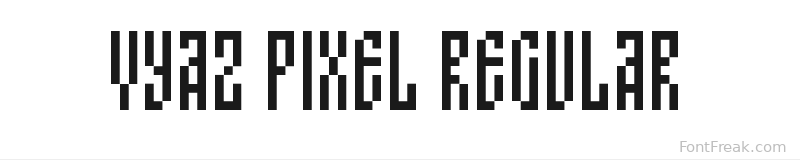
Vyaz Pixel Regular
About Vyaz Pixel Regular
Vyaz Pixel Regular by GGBot is a distinctive display font that falls within the pixel category. This typeface showcases a unique, blocky aesthetic, reminiscent of retro video games and digital displays. Its characters feature a consistent stroke weight, providing a uniform appearance that contributes to its intriguing visual impact. The spacing is thoughtfully designed, allowing for clear legibility while maintaining a cohesive look. With its angular forms and sharp edges, Vyaz Pixel Regular exudes a sense of technological sophistication that is both eye-catching and modern.
This font is ideal for a variety of creative applications. Graphic designers may find it particularly suitable for designing video game interfaces, where a bold and retro look is essential. Small business owners could use Vyaz Pixel Regular for branding their tech-related ventures, such as app development or digital marketing firms. Additionally, content creators might choose this typeface for social media graphics that aim to capture attention quickly. It is also a great fit for event posters, especially in the realms of gaming or technology-themed events, where its distinctive style can effectively convey the theme.
What truly sets Vyaz Pixel Regular apart is its ability to merge nostalgia with modernity. The pixelated design evokes a sense of retro charm while remaining relevant in contemporary design contexts. For those looking to add a unique touch to their projects, Vyaz Pixel Regular font free download is an excellent choice that combines style and functionality.